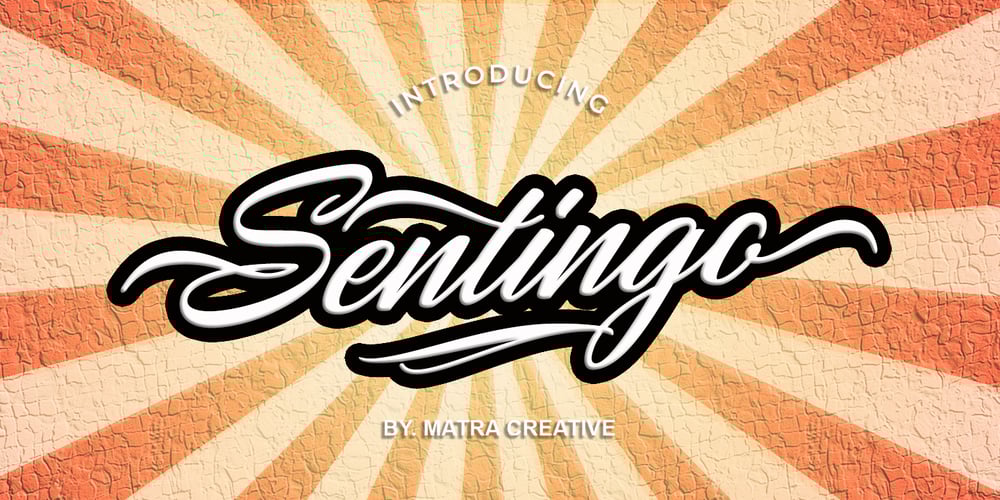
Sentingo Font Family was designed by May Adifarzan muis and published by Matra Creative. Sentingo contains 1 styles and family package options. Santiago is both charming and elegant. This stunning script font is a stylish homage to classic calligraphy. This will elevate a variety of design projects to the highest level, be it branding, headings, wedding designs, invitations, signatures, logos, labels, and more!